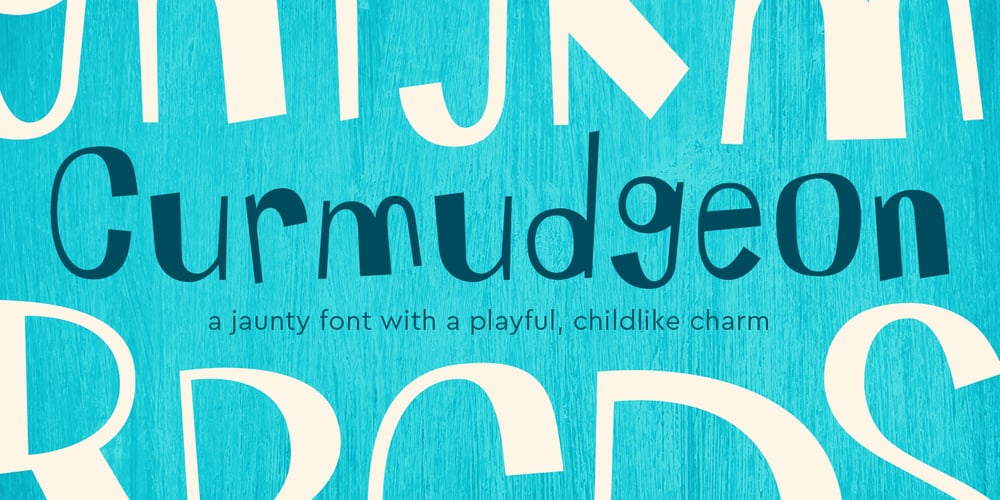
Curmudgeon
Curmudgeon font
Curmudgeon Font Family was designed by Eric Stevens and published by Tower of Babel. Curmudgeon contains 1 styles and family package options. Contrary to its name, Curmudgeon is a fun and whimsical typeface that’s perfect for children’s books, holiday announcements or anything that needs a charmingly playful touch. Its naive and bouncy personality will add interest to any project, whether it be a logo, packaging, or any other project that needs some quirky character.